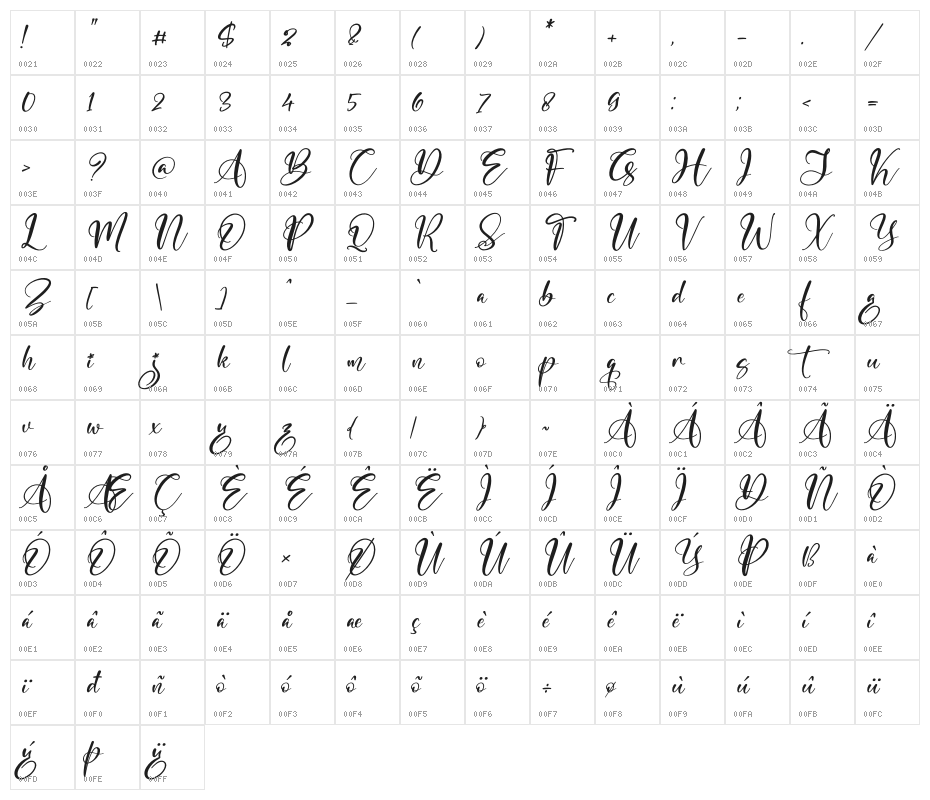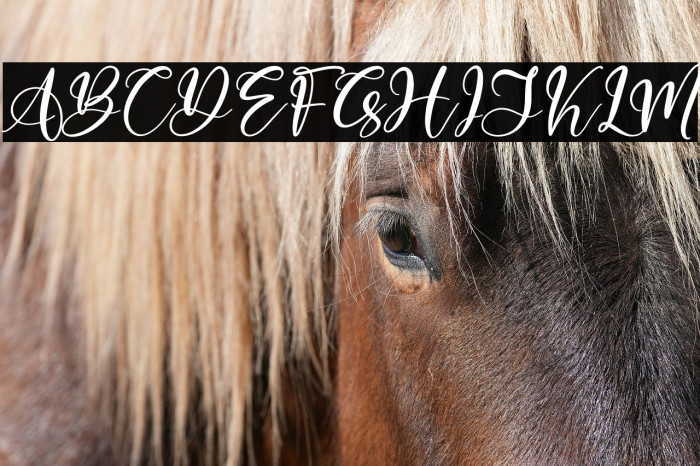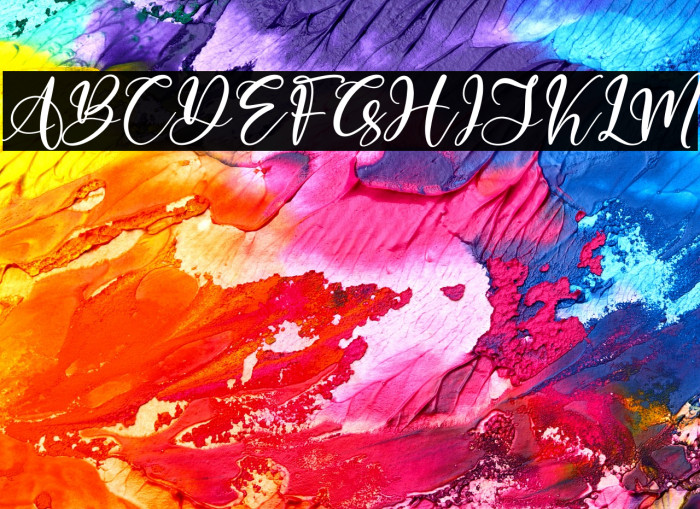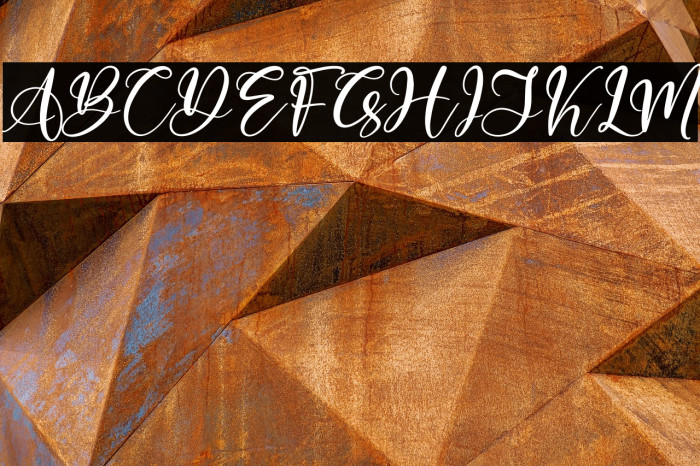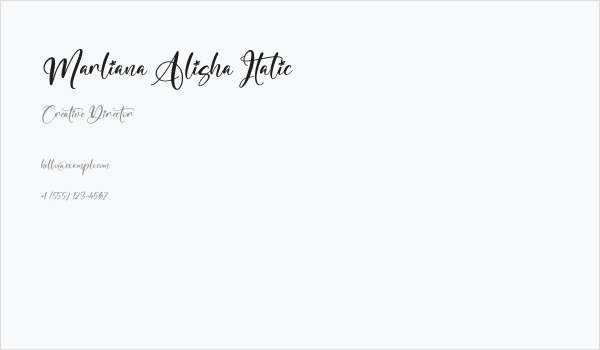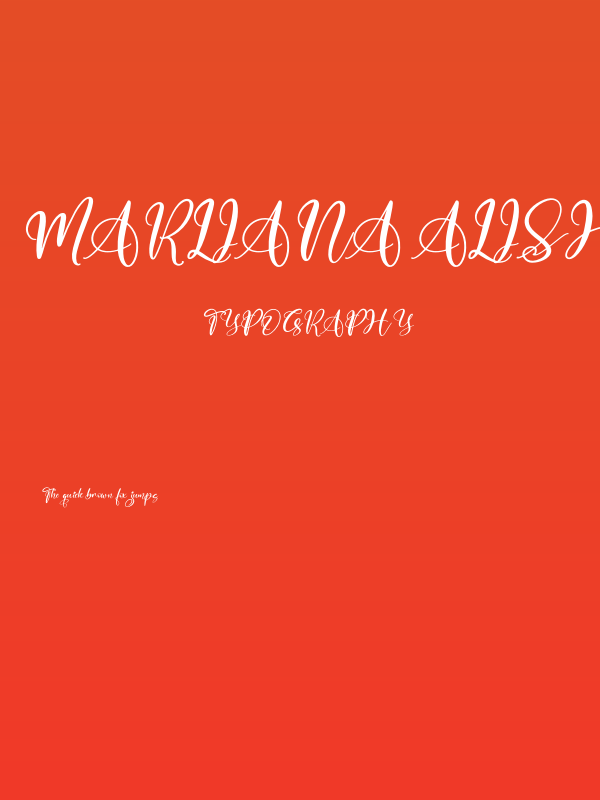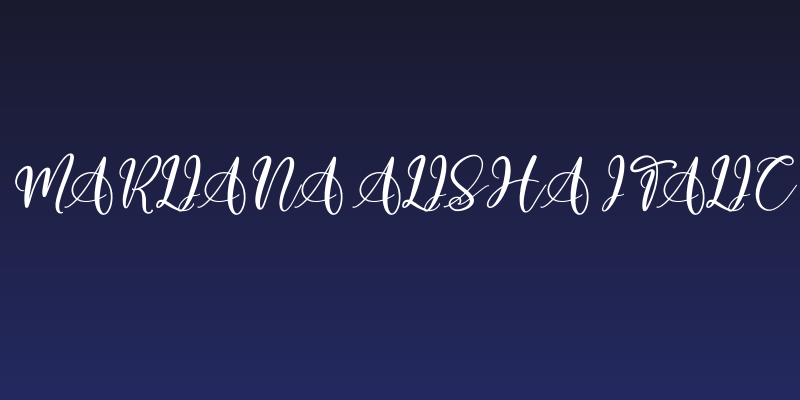
Marliana Alisha Italic Font
Marliana Alisha Italic Description
This elegant script font features a flowing, cursive style with a distinct italic slant. The uppercase letters are characterized by their sweeping, graceful curves and loops, while the lowercase letters maintain a consistent fluidity and connectedness. The font includes numerals and a variety of special characters, all designed with the same attention to detail and decorative flair. The overall appearance is sophisticated and artistic, making it ideal for projects that require a touch of elegance and personal expression.
| Overall Style | Elegant, Decorative |
| Proposed Projects | Ideal for wedding invitations, greeting cards, branding, and logo design where a personal and elegant touch is desired. |